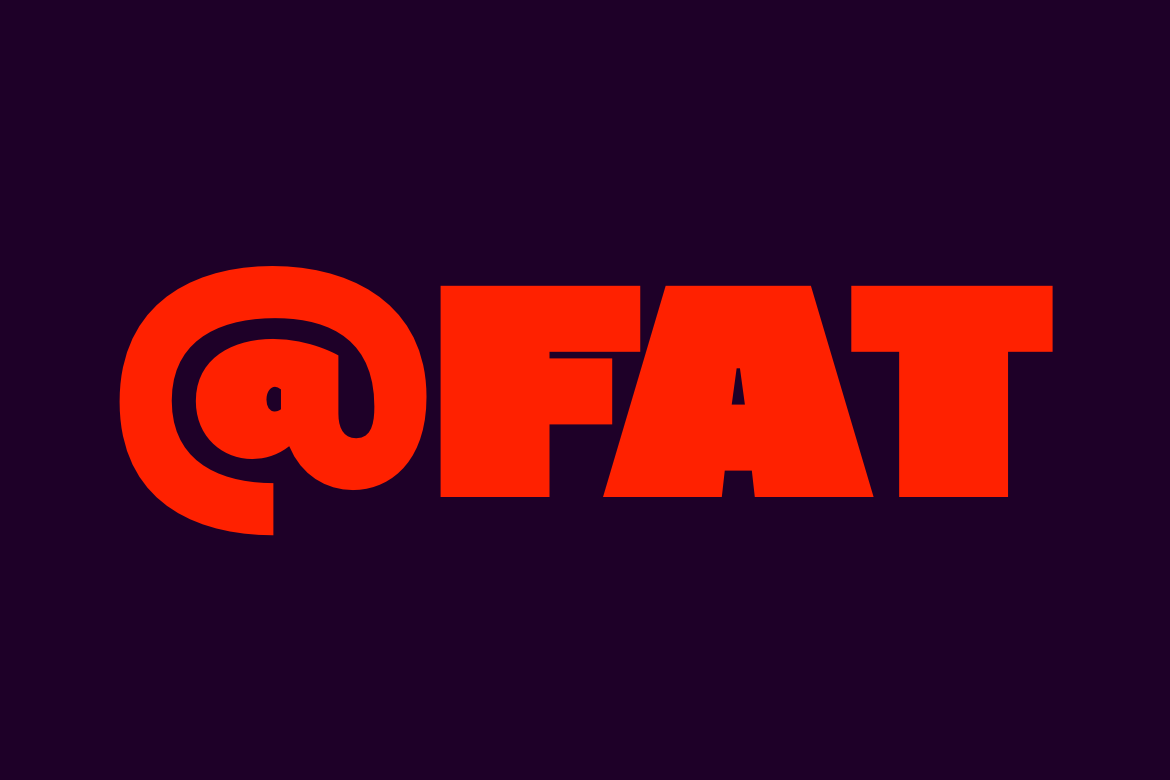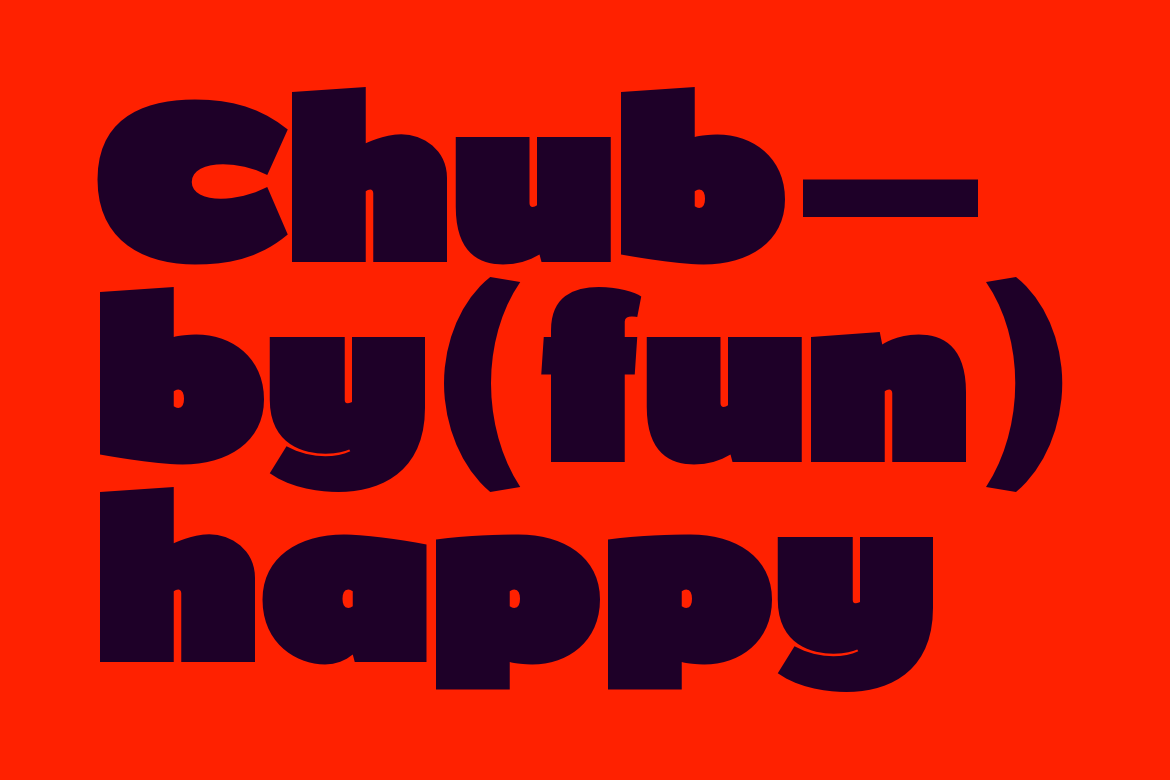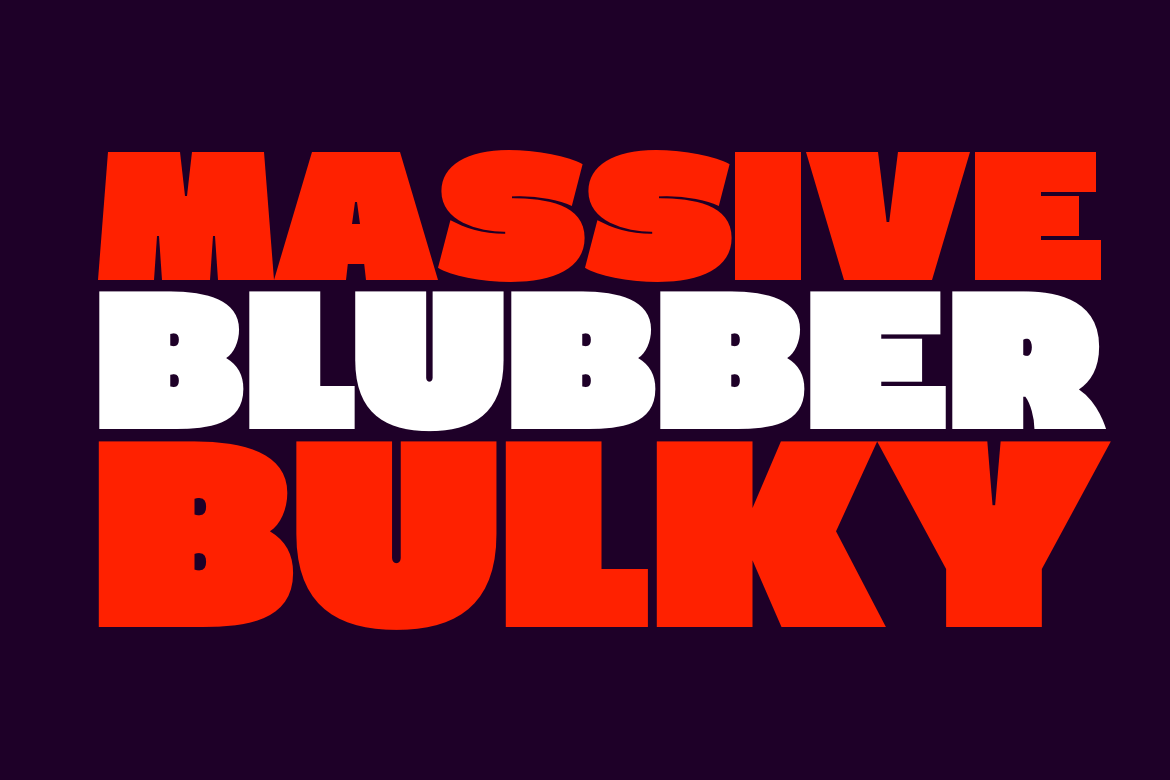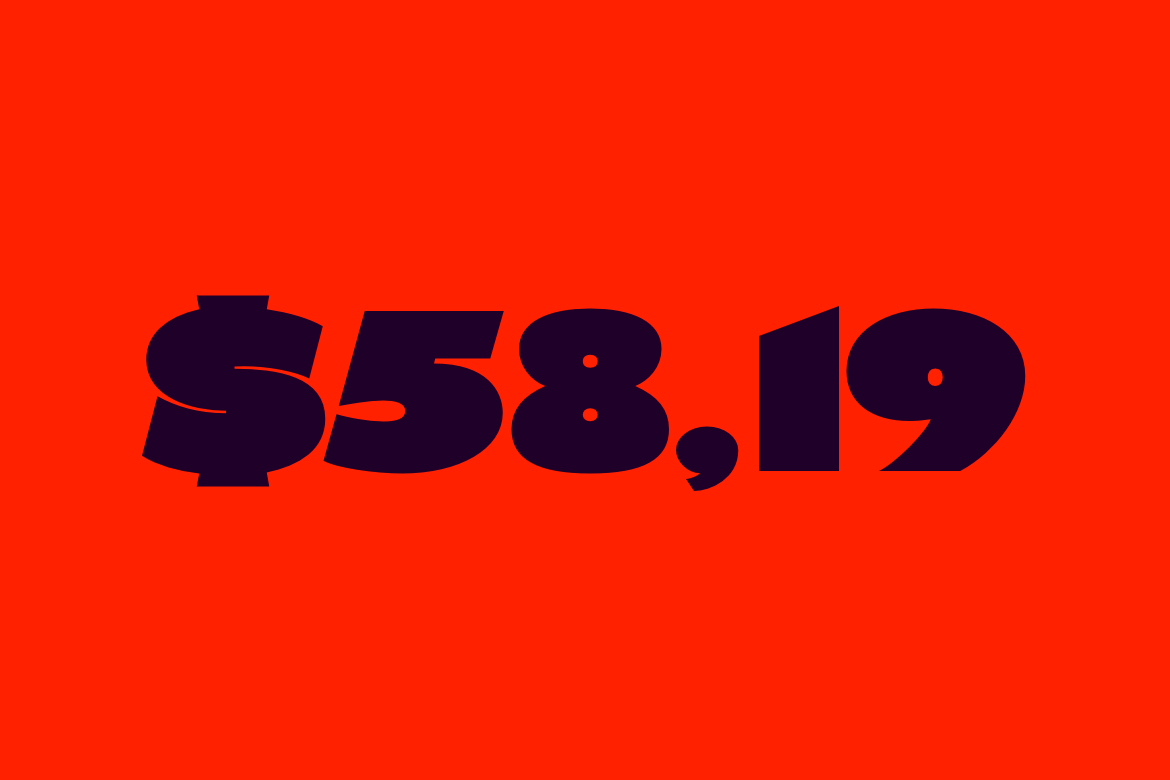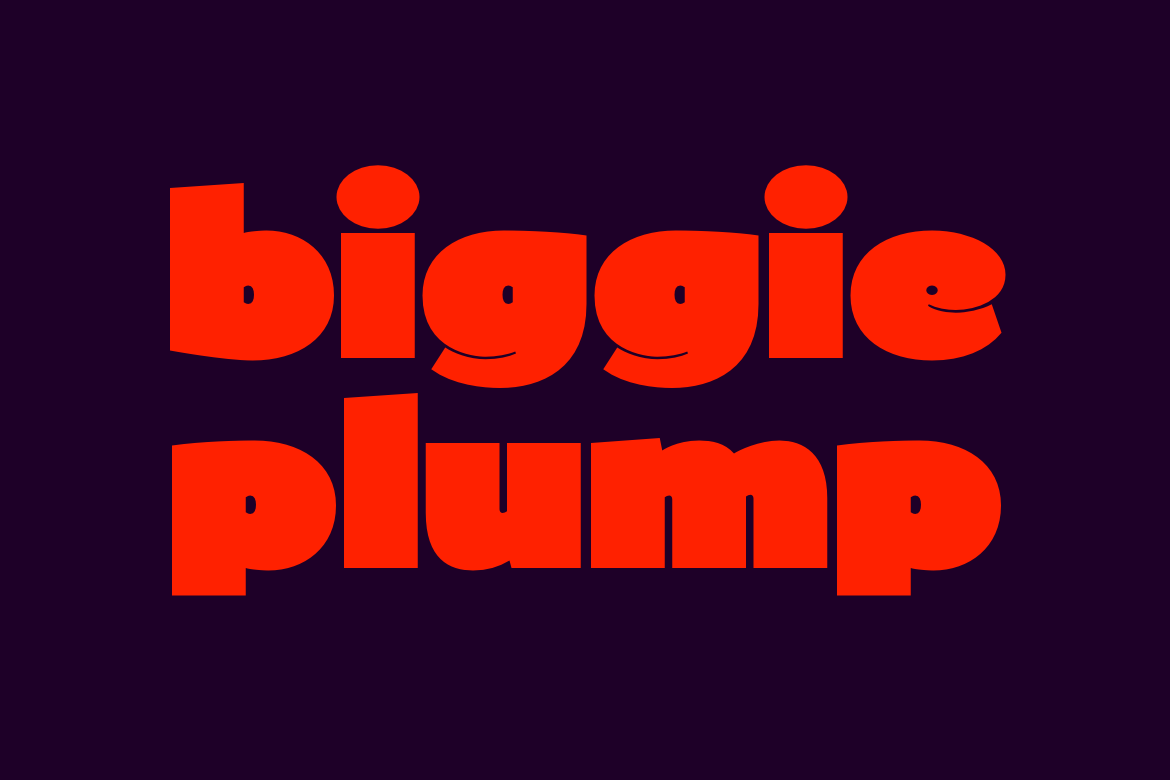
RNS Obesa Fat Font
RNS Obesa Fat Font is perfect for bold advertising campaigns, impactful headlines, eye-catching posters, powerful logo designs, dramatic event graphics, attention-grabbing social media content, high-impact packaging design, commanding brand statements, dynamic sports marketing, and explosive promotional materials.
What makes RNS Obesa Fat Font so exciting is its extreme boldness that delivers maximum visual impact while maintaining exceptional readability and professional quality. This commanding typeface embodies power and confidence, creating typography that dominates visual space and communicates with uncompromising authority and memorable presence.
The RNS Obesa Fat Font family includes ultra-bold, black, and heavy weights, featuring powerful design elements, dramatic styling options, and commanding variations that provide designers with comprehensive tools for creating maximum-impact typography that overwhelms competition and captures attention.
Dominate visual space with RNS Obesa Fat Font Free Download, a powerfully engineered typeface that brings extreme boldness and commanding presence to high-impact design projects. This exceptional font embodies the ultimate fusion of overwhelming power and professional precision, making it the definitive choice for brands that need to command absolute attention and dominate their market.
The dramatically crafted letterforms of RNS Obesa Fat Font showcase extreme boldness with overwhelming presence that creates instant visual dominance and unforgettable brand recognition. Each character displays maximum attention to maintaining the powerful weight that defines commanding authority while ensuring superior readability and professional versatility. The font's bold construction and dramatic spacing contribute to its overwhelming appearance and dominant appeal.
High-impact brands and power-focused companies consistently choose RNS Obesa Fat Font for projects requiring maximum visual weight and commanding presence. The comprehensive character set includes uppercase and lowercase letters, numerals, extensive punctuation, international accents, and powerful decorative elements that provide complete support for high-impact branding applications and dominant design compositions.
The extreme versatility of RNS Obesa Fat Font ensures exceptional performance across both traditional print and modern digital platforms. Whether developing dominant brand identities, creating high-impact advertising campaigns, or designing explosive promotional materials, this remarkable typeface delivers consistent power that overwhelms audiences and commands absolute attention and respect.
Transform your most powerful projects with RNS Obesa Fat Font Free Download. This extraordinary typeface brings extreme boldness and overwhelming dominance to typography, making it the essential choice for designers who create experiences that define maximum visual impact and uncompromising power in contemporary design.